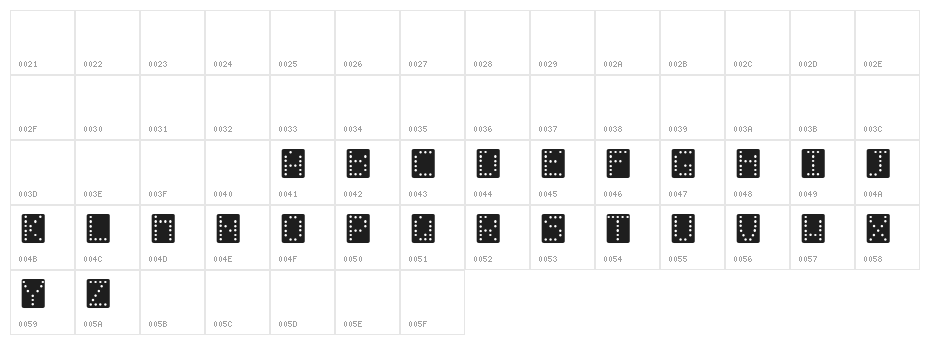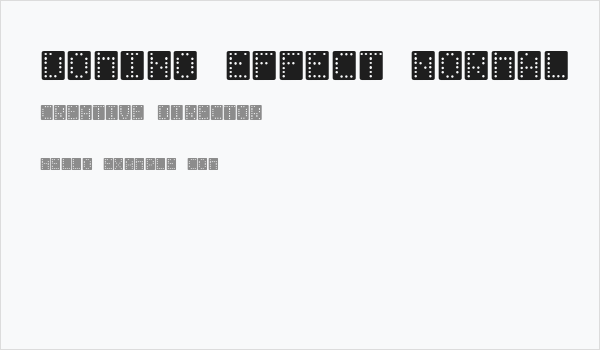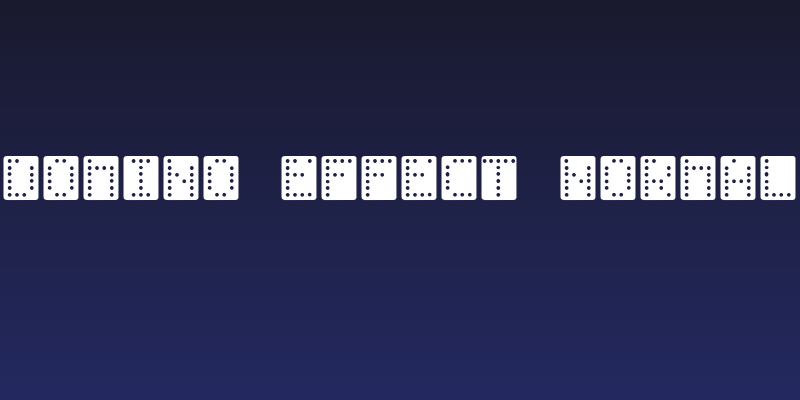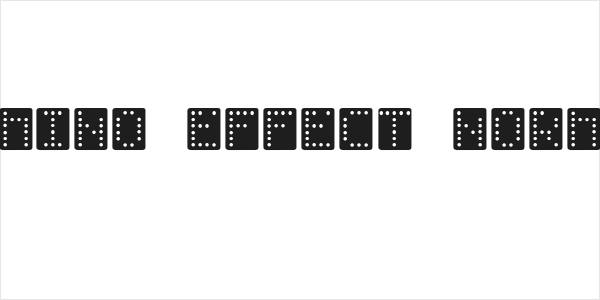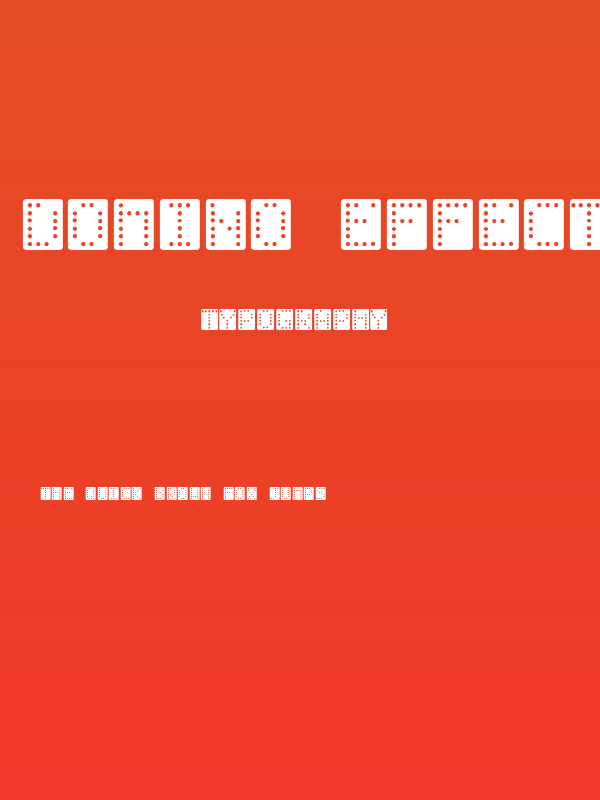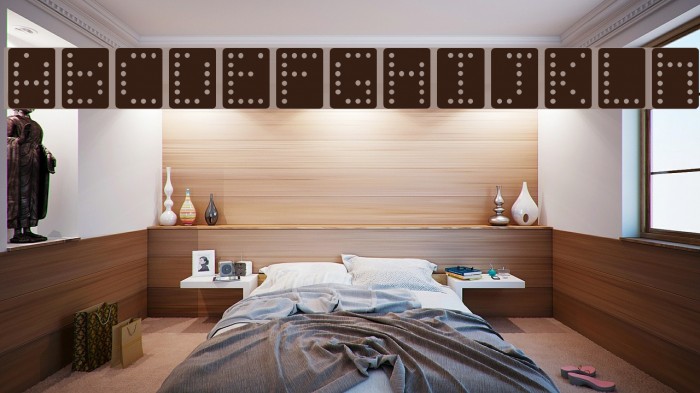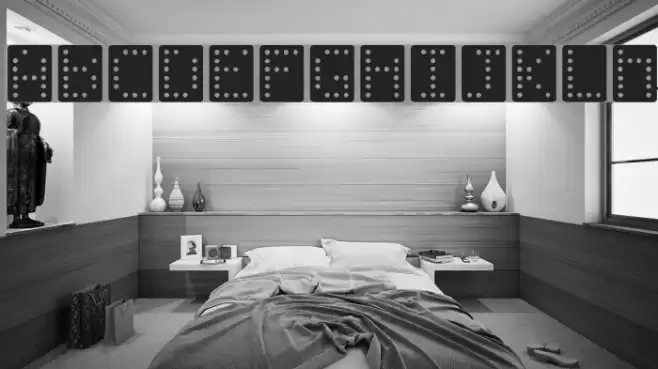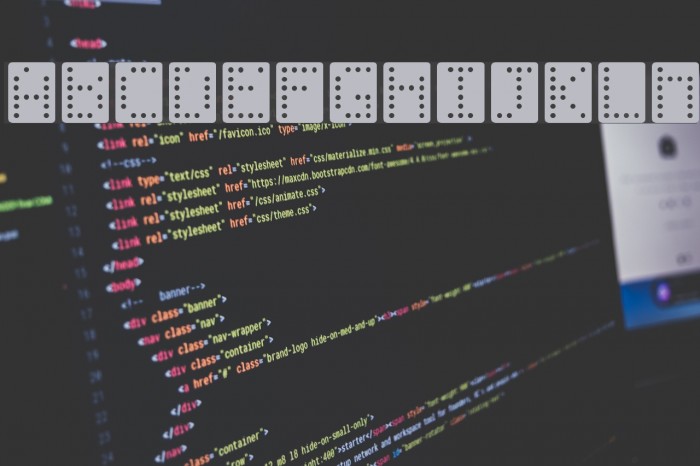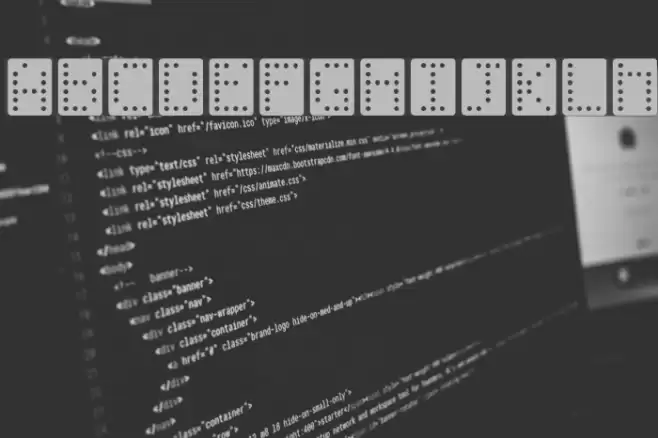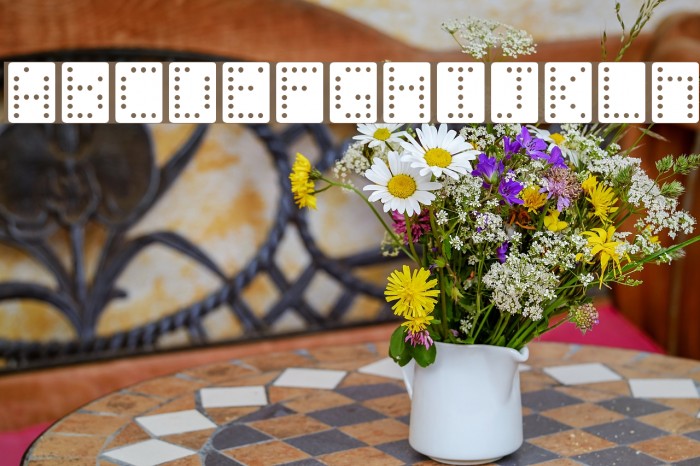
Domino-Effect-Normal Font
Domino-Effect-Normal Description
This font features a unique design where each character is styled to resemble a domino tile. The letters are enclosed within square shapes, with dots arranged to form the character shapes, mimicking the appearance of domino pips. The bold, blocky design makes it highly distinctive and eye-catching, suitable for creative and playful applications. The uniformity of the squares provides a consistent and structured look, while the dotted representation adds a playful and informal touch. This font is ideal for projects that aim to convey a sense of fun or novelty, making it perfect for themed events, games, or children's materials.
| Overall Style | Playful, Novelty |
| Use Case | Logos, Posters, Themed Events |
| Proposed Projects | Ideal for game designs, children's books, themed event posters, and playful branding. |